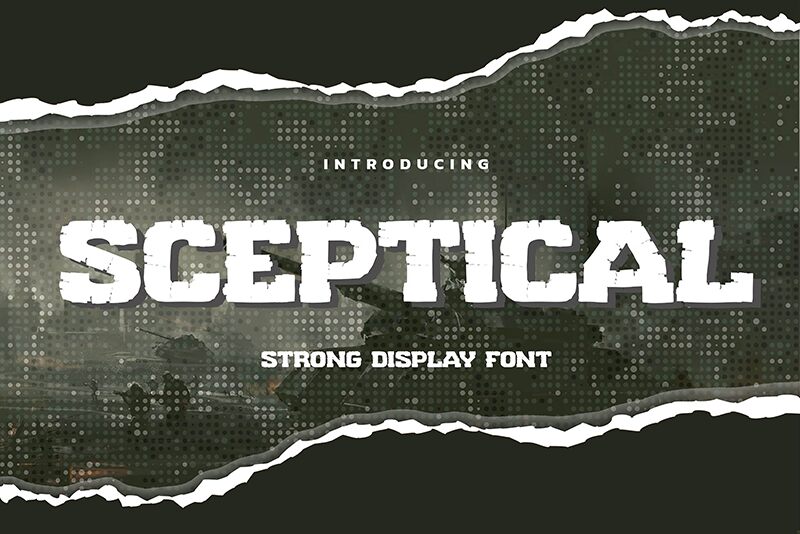
Sceptical
Sceptical font, designed by Gassstype, captivates with its bold, eroded aesthetics and expanded form. This display typeface embraces an intriguing blend of ruggedness and dynamism, making it visually striking and memorable. Its unique character evokes a sense of raw authenticity while still demanding attention through its robust presence.
Ideal for eye-catching headlines, poster designs, or branded materials that seek to convey strength and individuality, Scepticalfont serves as a captivating choice across various design contexts. Whether used in creative campaigns or artistic projects, this font authentically blends boldness with texture to leave a lasting impression.